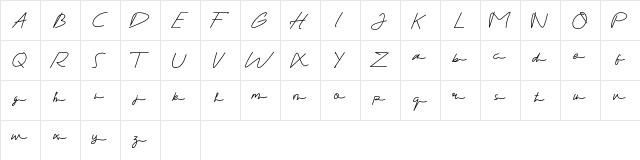
Gandhewa Signature Regular
| Designer | NirmalaGraphics |
Design Context for Gandhewa Signature Typeface
Gandhewa Signature is a composed and adaptable typeface that performs quietly and consistently across a wide range of design contexts.